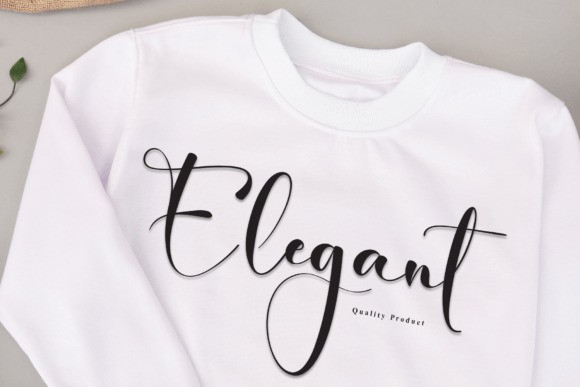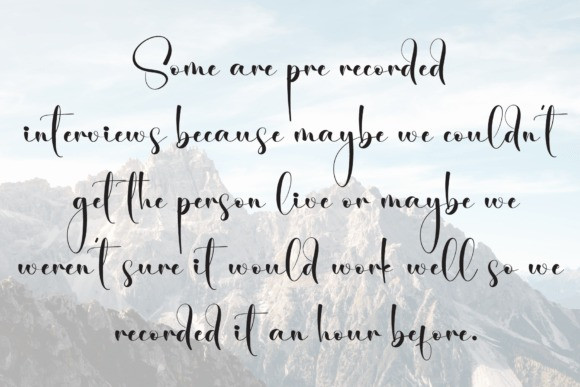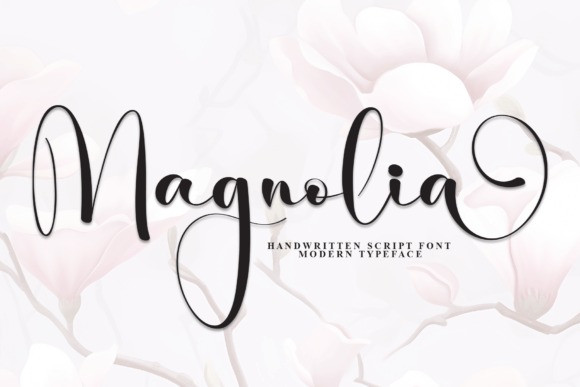
Magnolia Style Script Font
Magnolia Style Script Font is a stylish handwritten font that blends bold and thin lines. Its flowing, natural look gives it an elegant and personal feel, making it great for creative and classy designs.